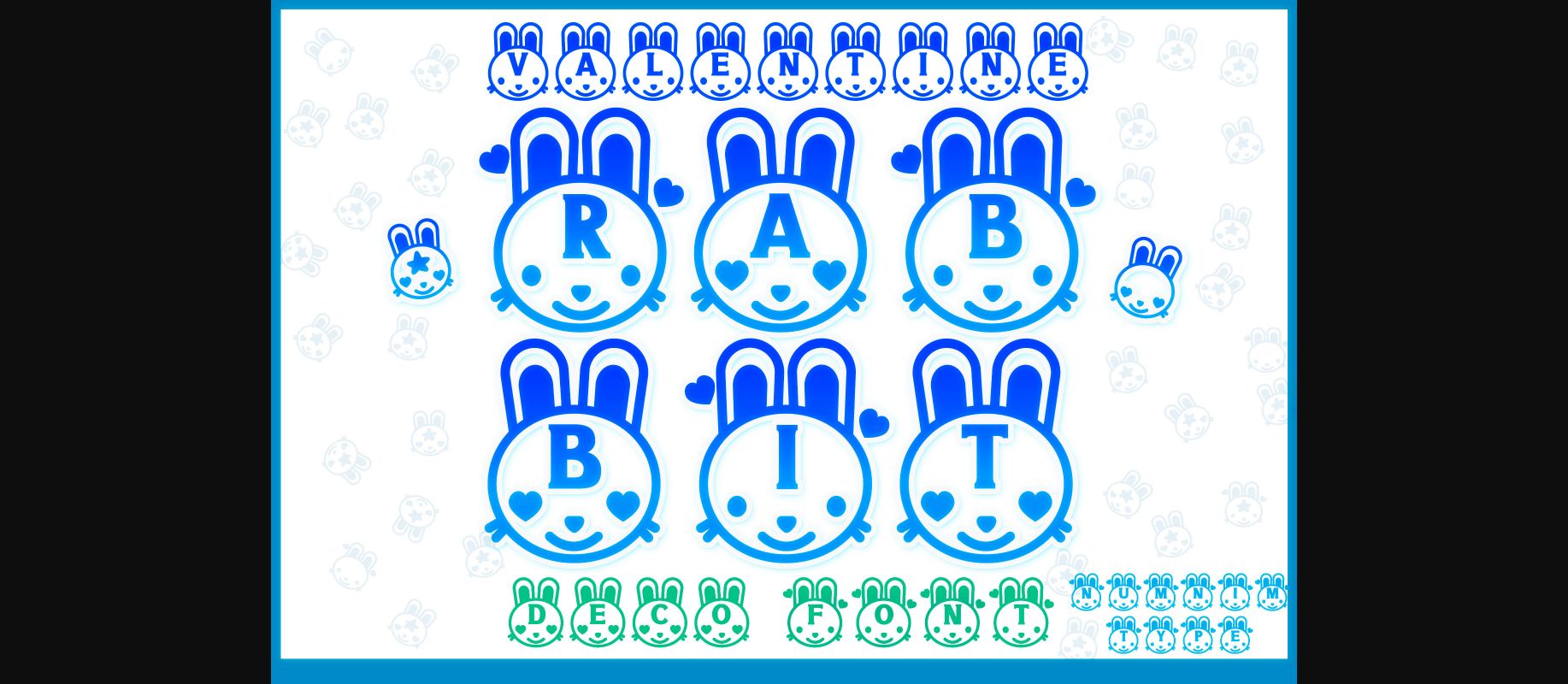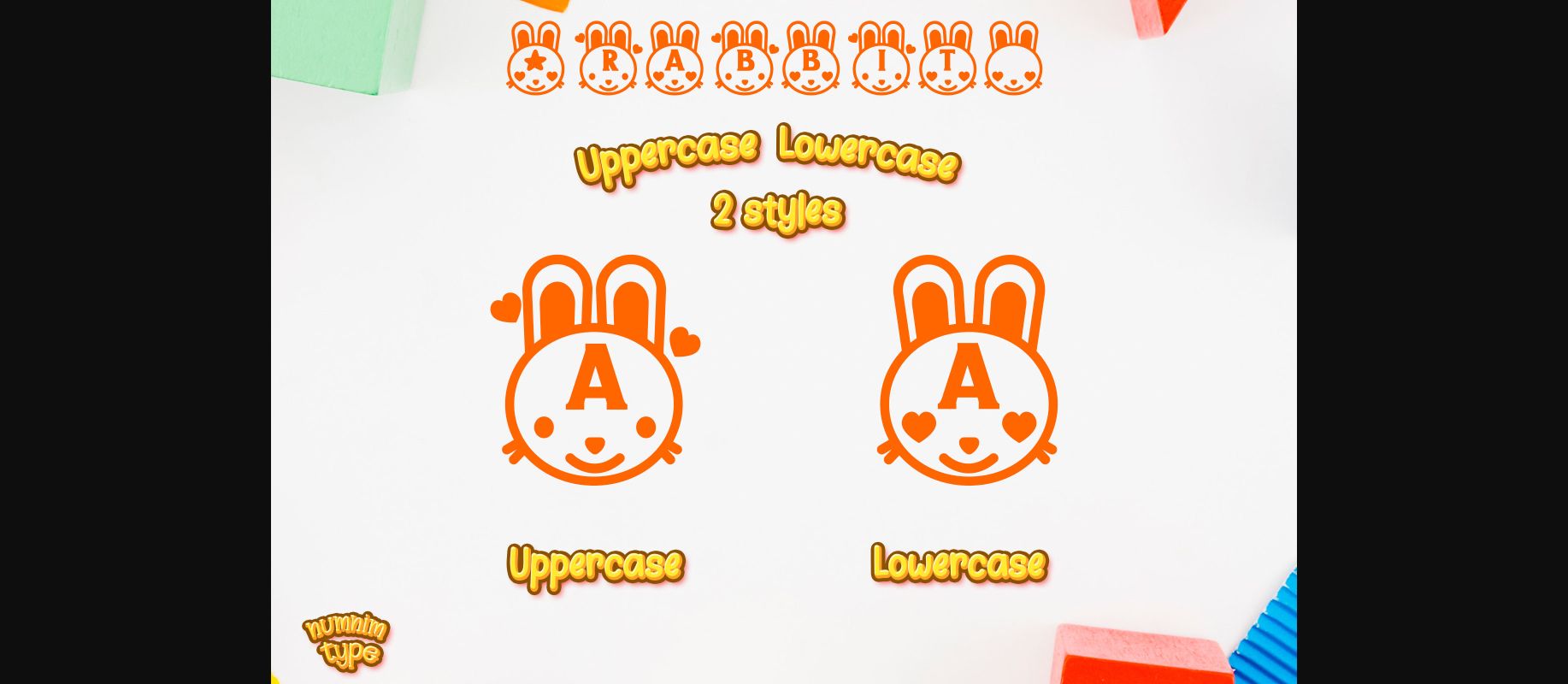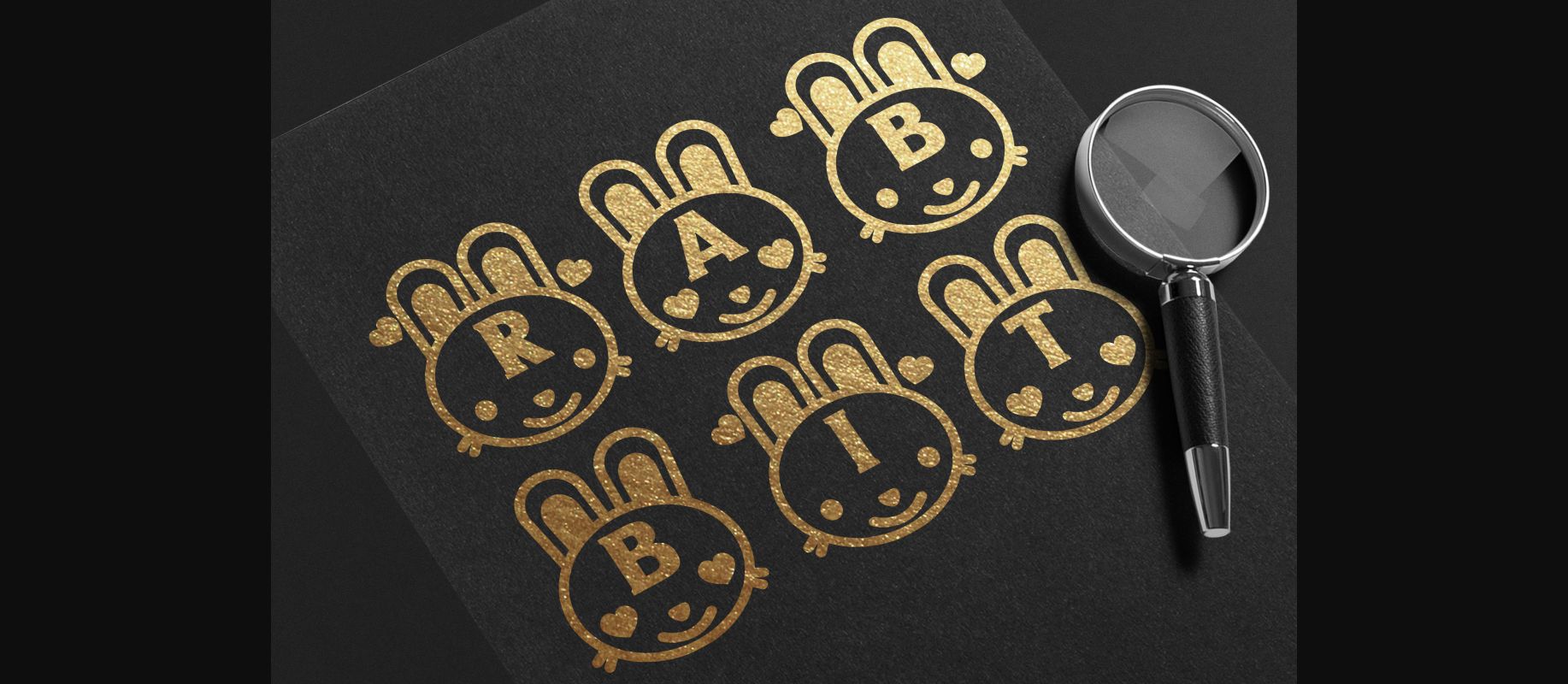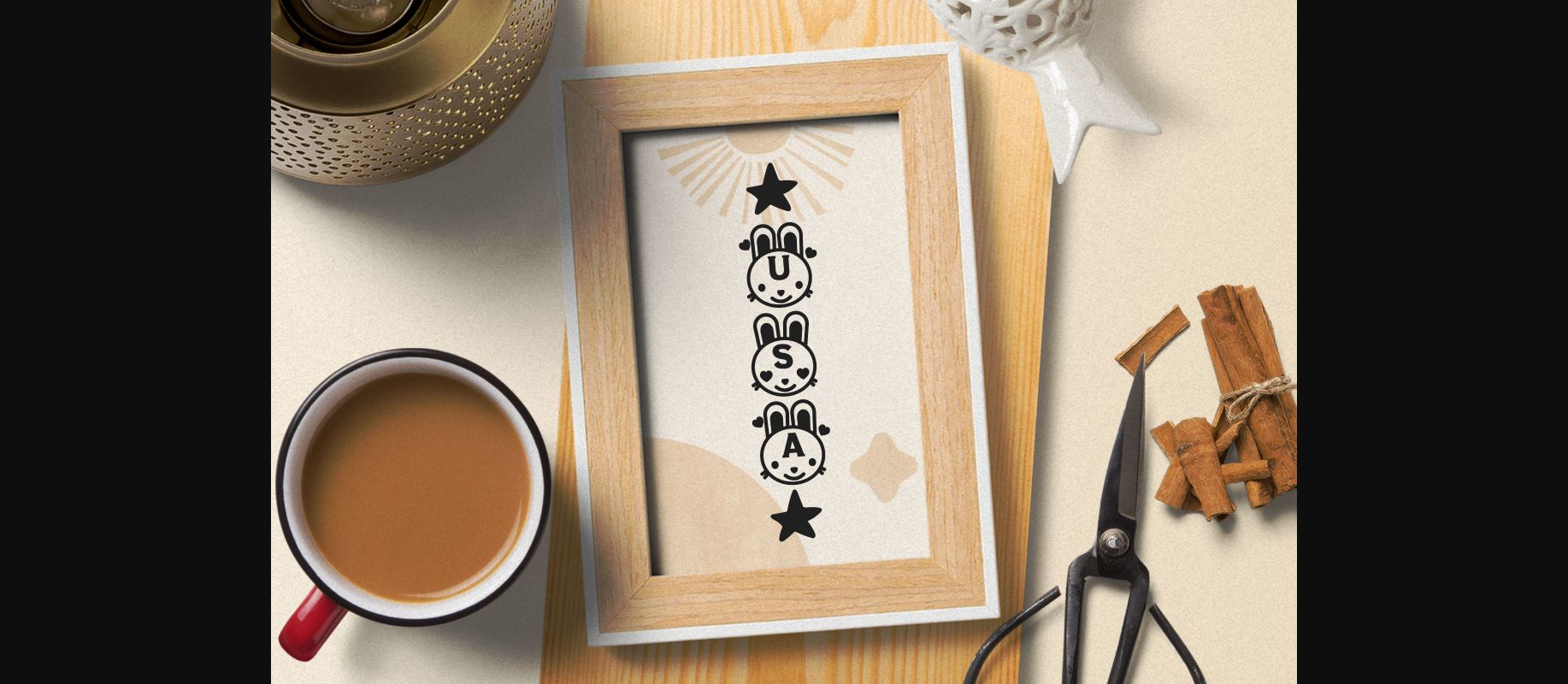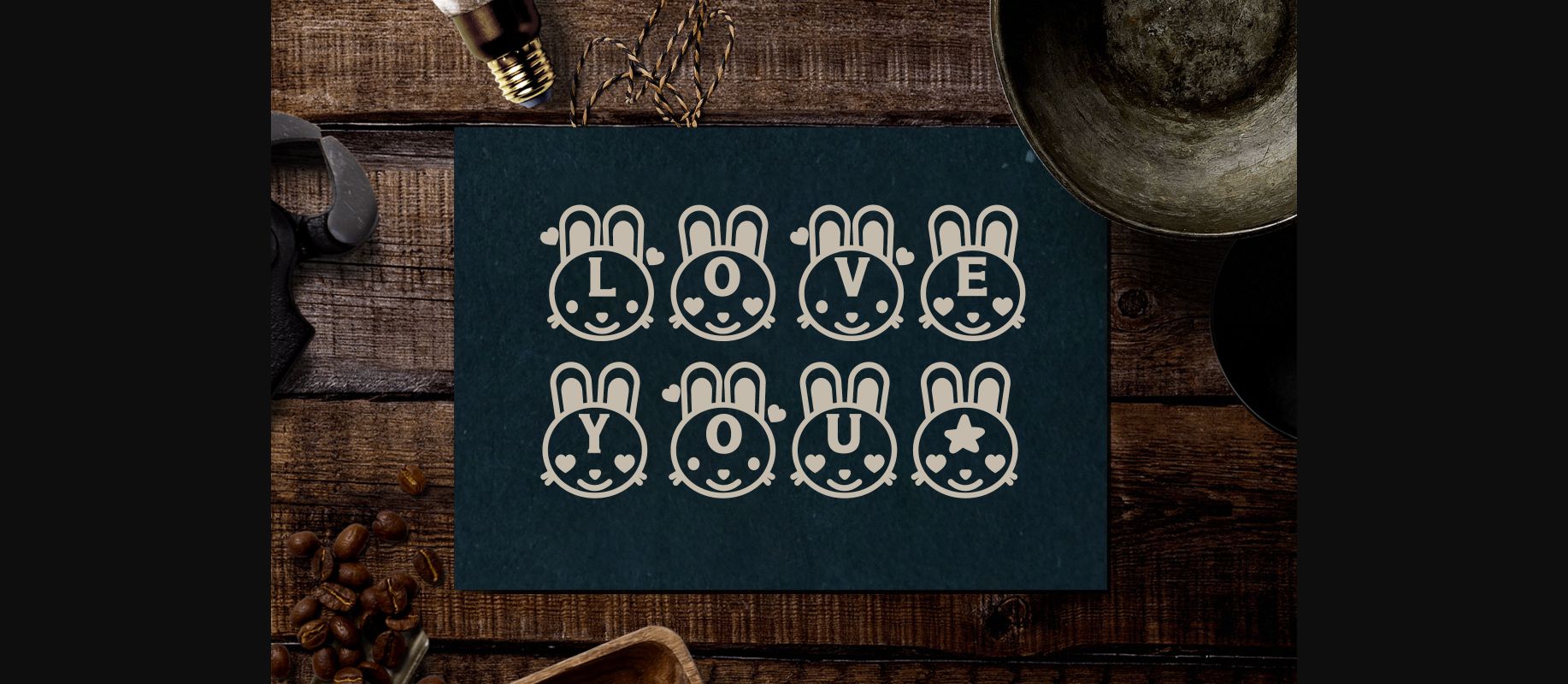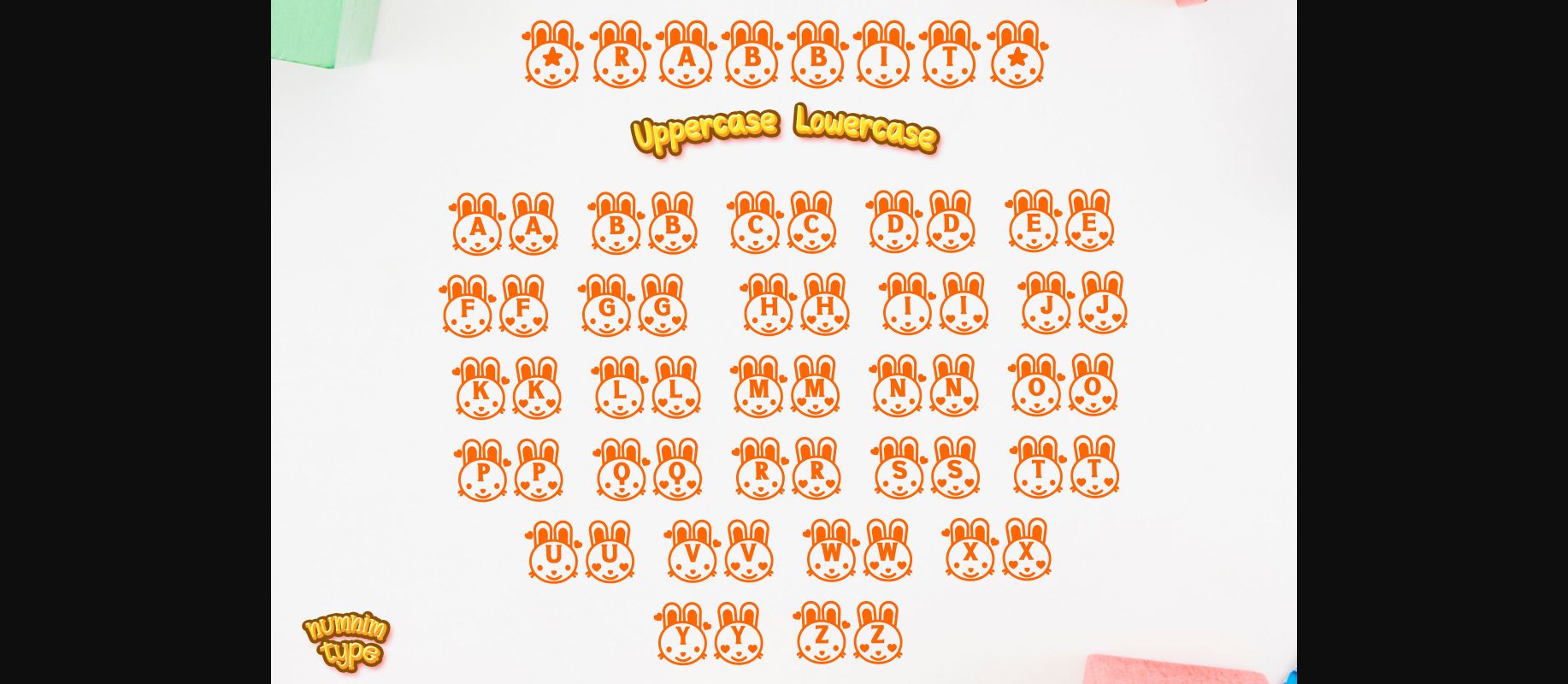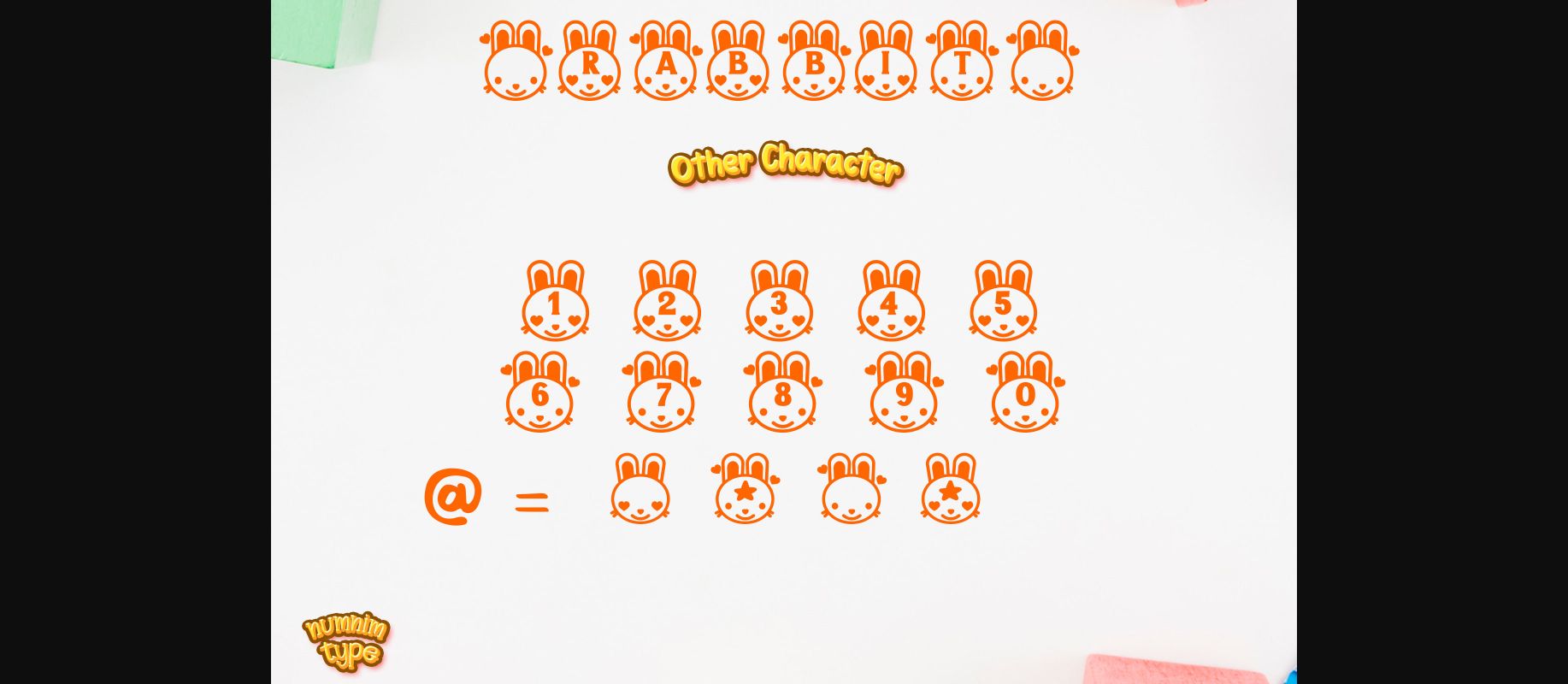
Valentine Rabbit Font
About Valentine Rabbit Font
Valentine Rabbit is a cool and uniquely crafted decorative font. Its fun and playful characters make it the perfect font for stickers, mugs, t-shirts, ornaments, kids’ event cards, event invitations, and many more!